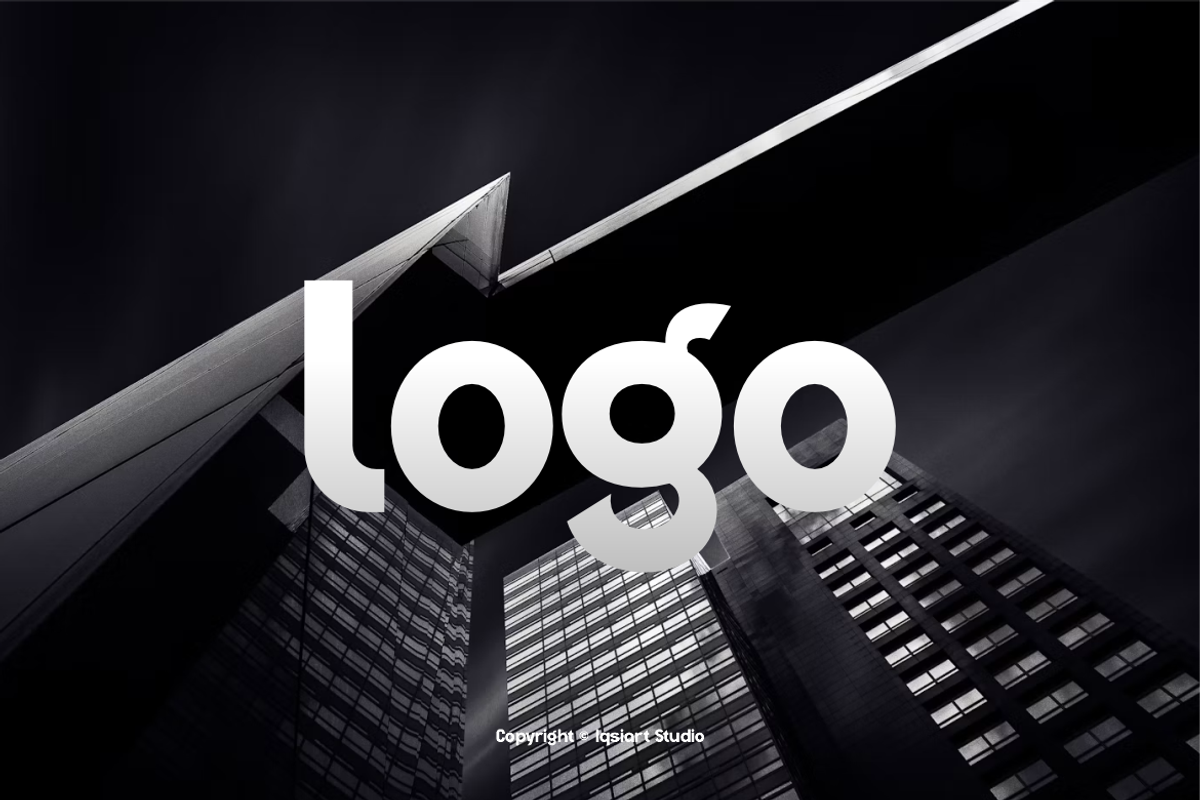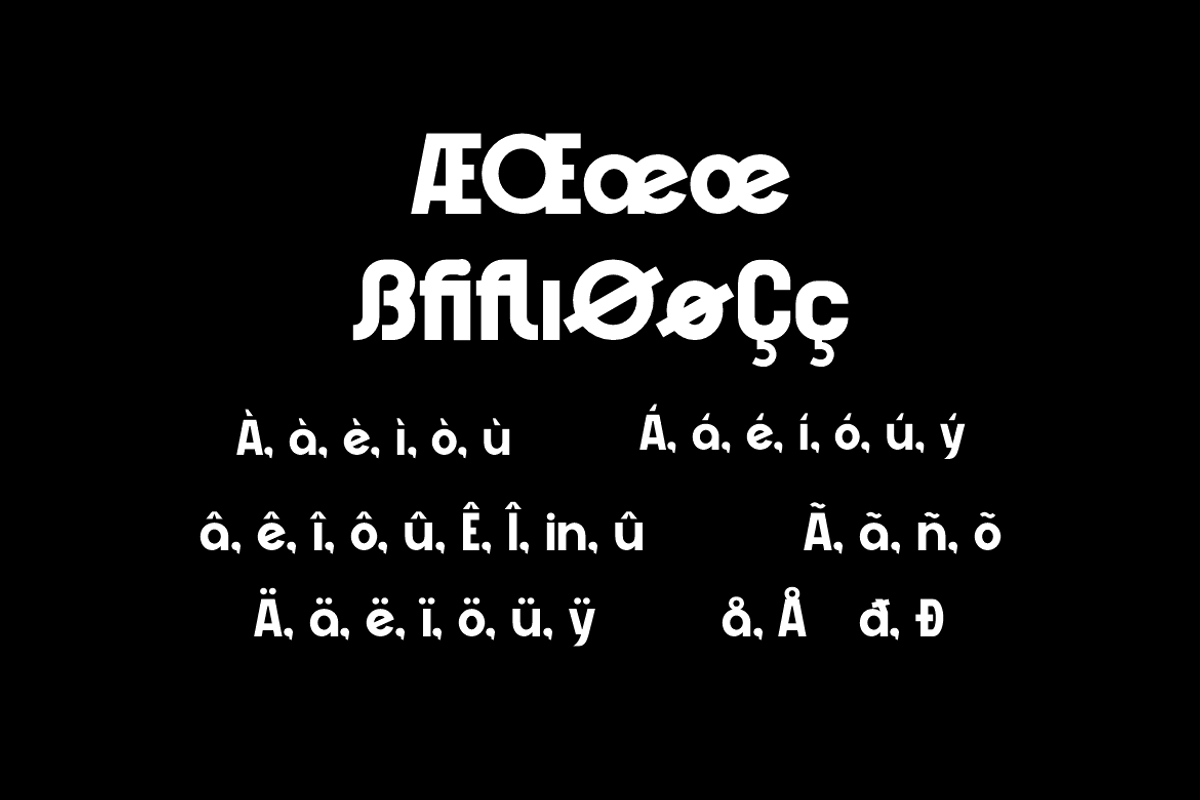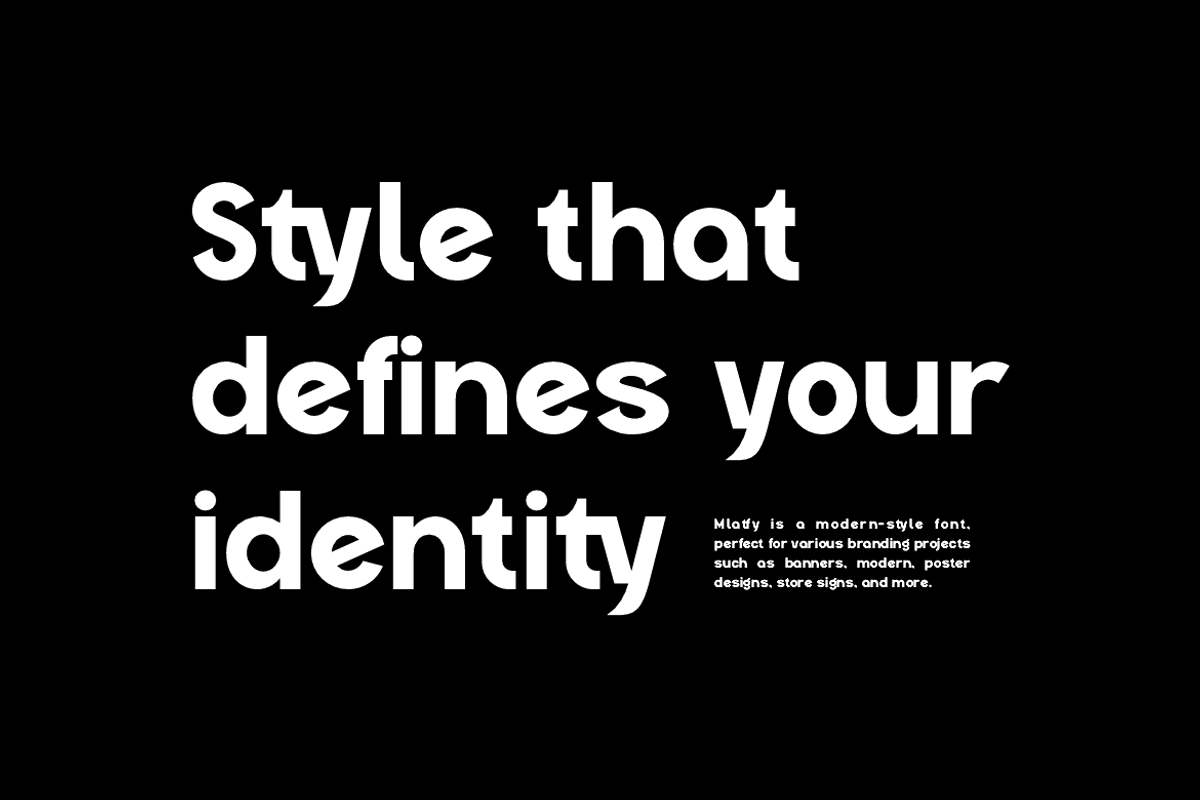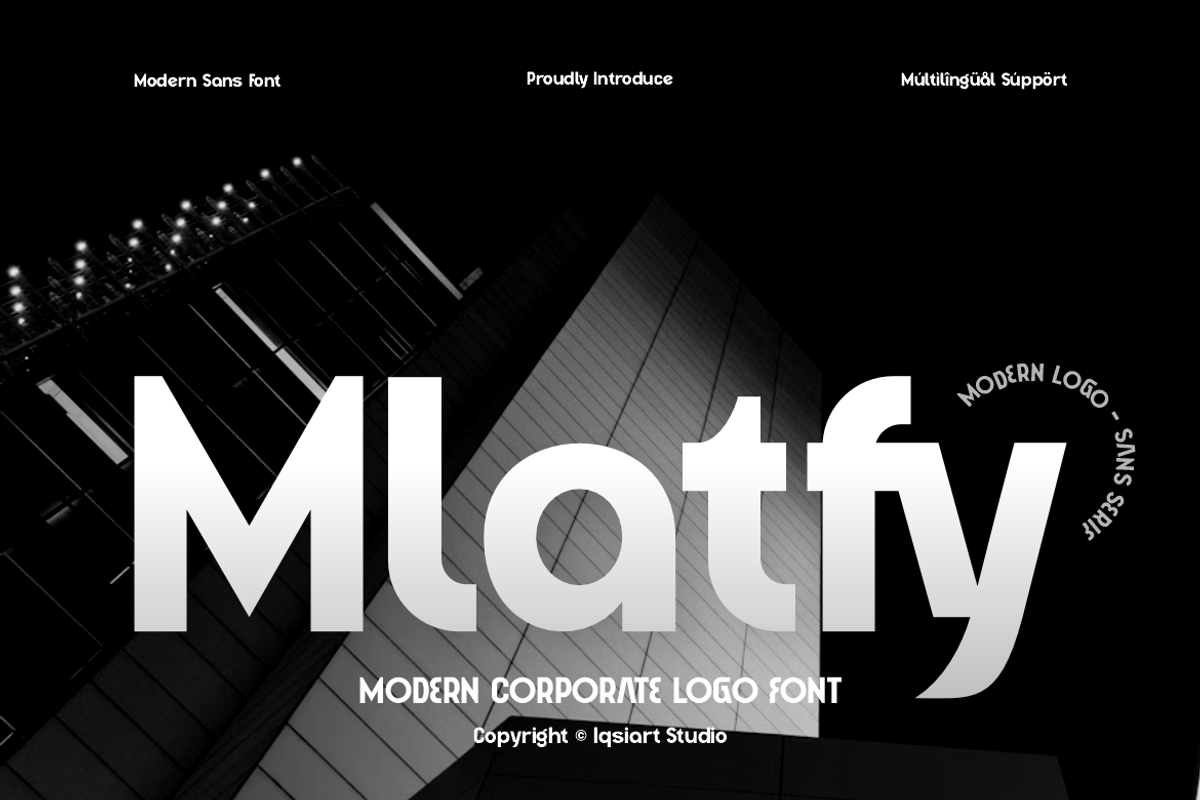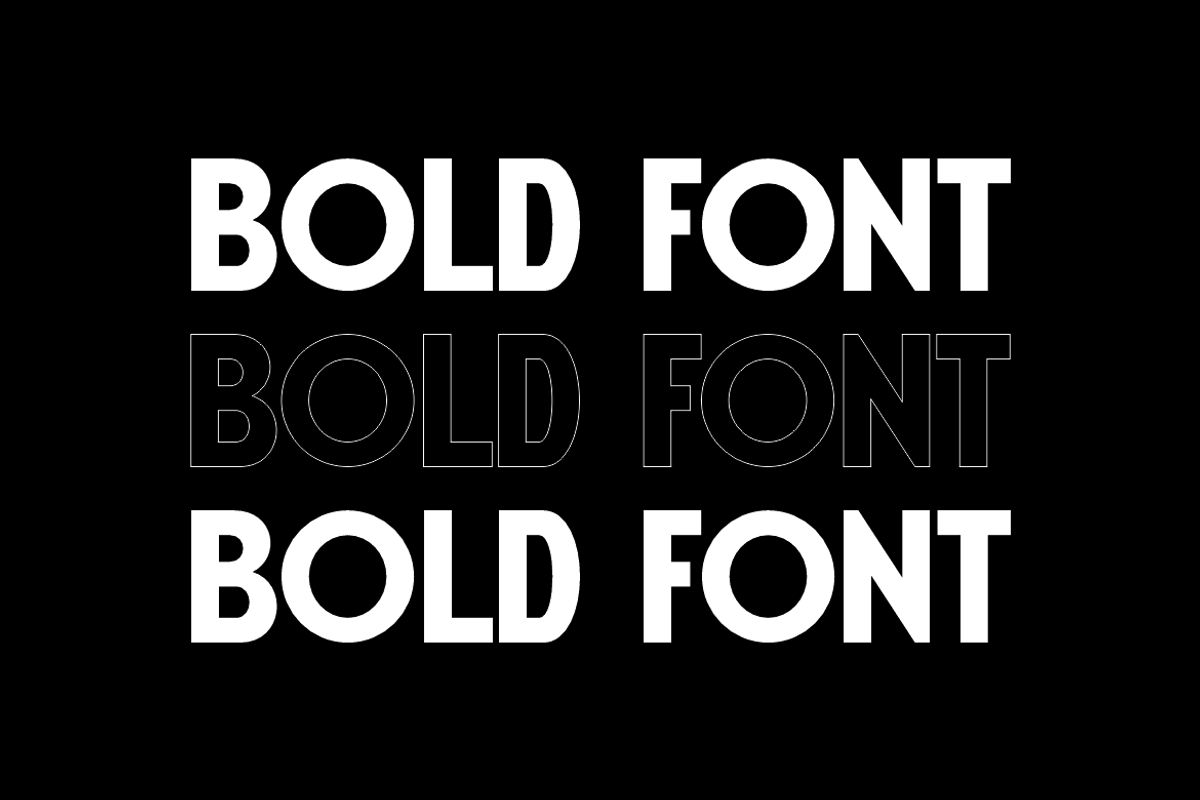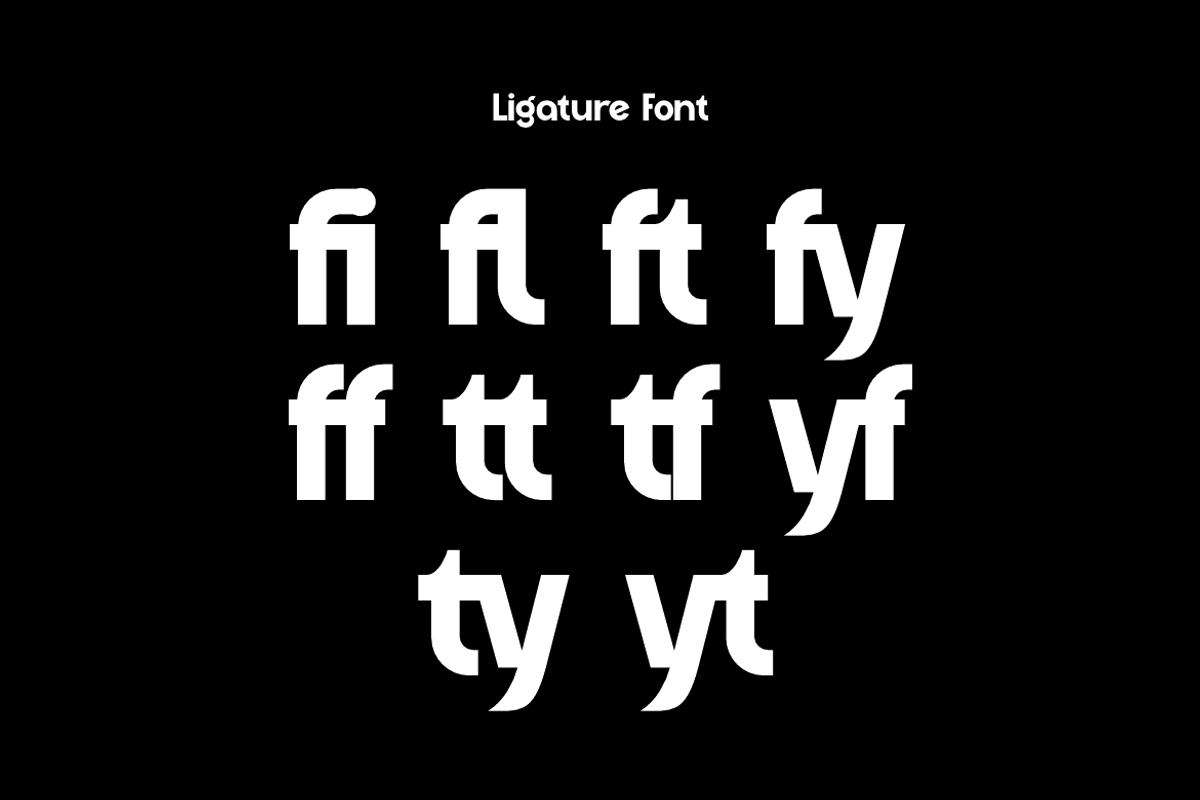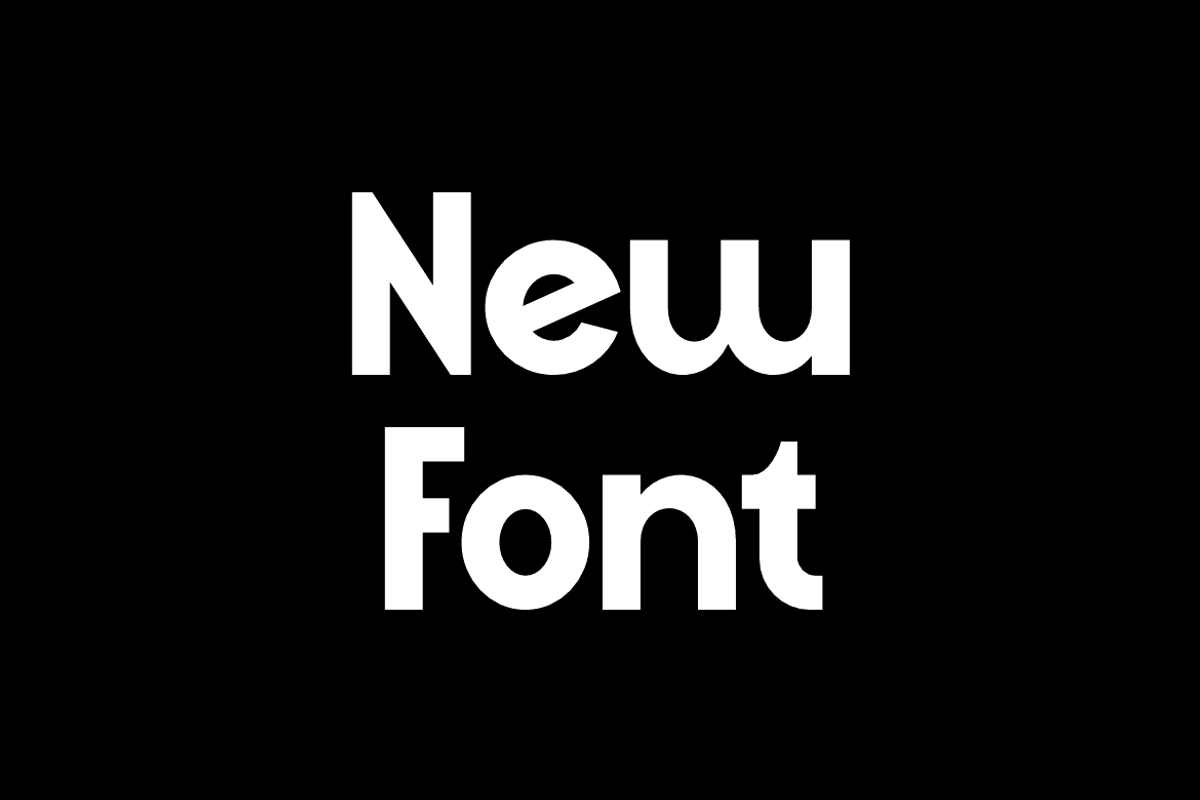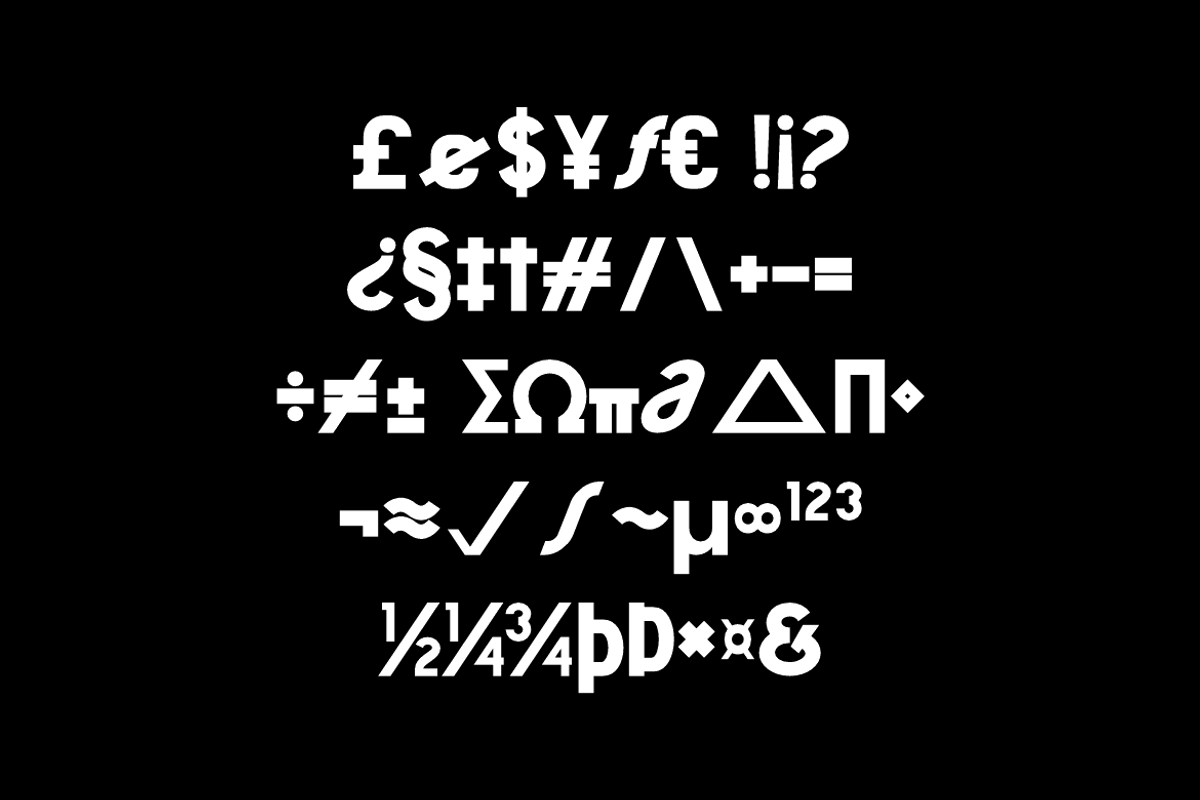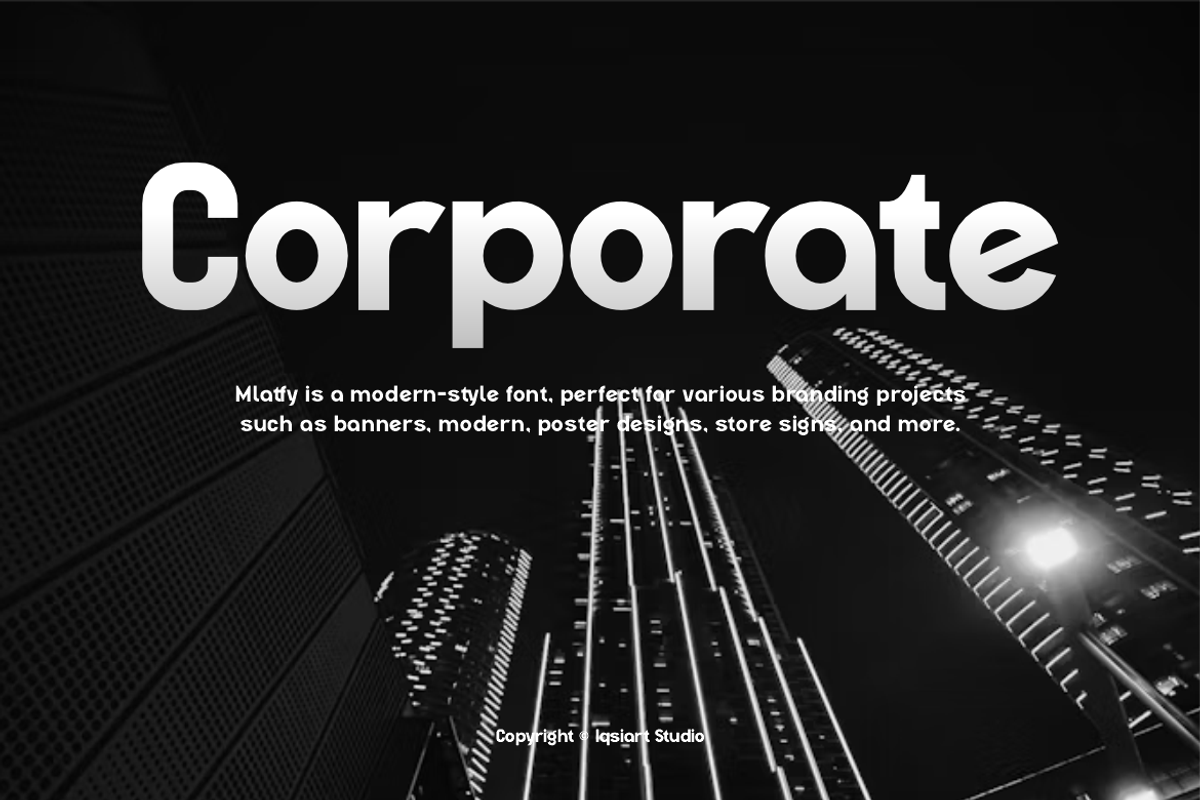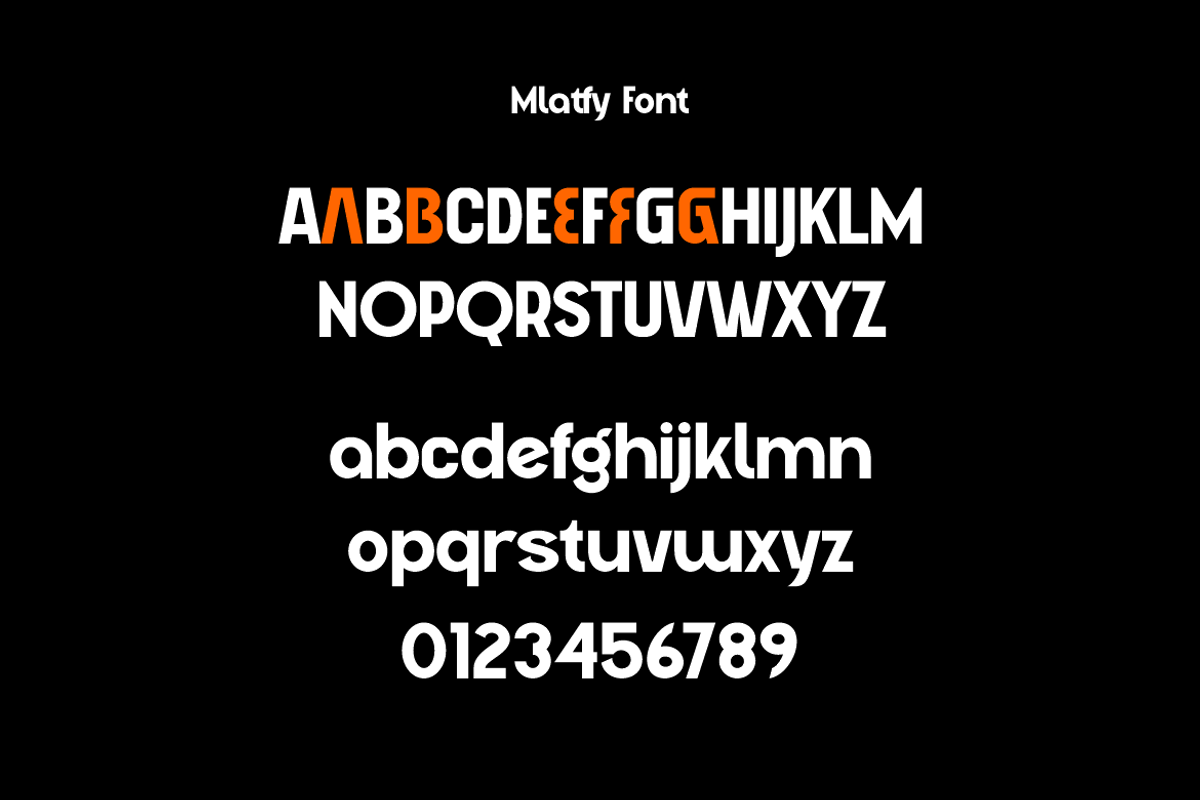
Mlatfy - Modern Sans Bold Font
Mlatfy Font is a modern and authentic display typeface
that suits a variety of design needs. We offer a wide range of themes